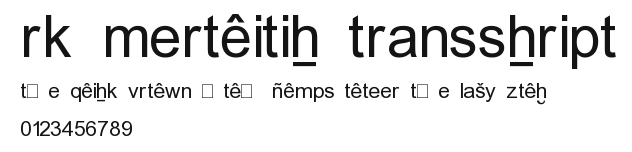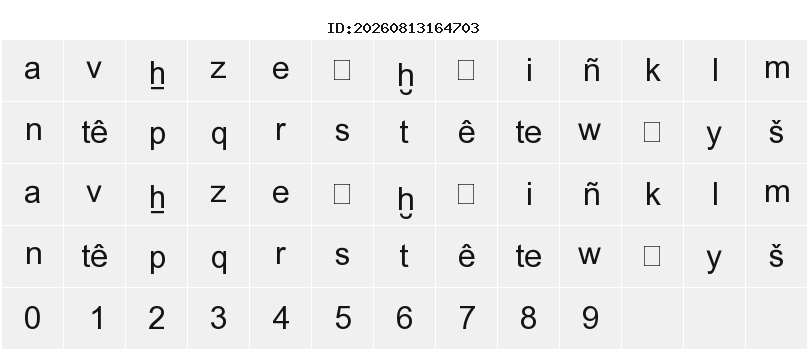
RK Meroitic Transscript Preview
• Font Name: RK Meroitic Transscript
• Full Font Name: RK Meroitic Transscript
About RK Meroitic Transscript.ttf
RK Meroitic Transscript.ttf is a modern, elegant sans-serif font designed for ultimate readability and visual harmony. Perfect for branding, headlines, web design, and print materials.